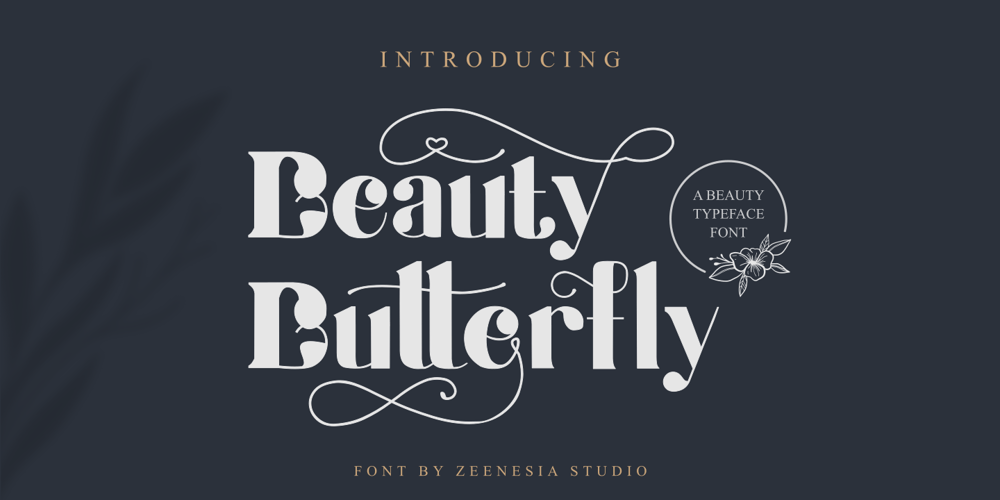
Beauty Butterfly
Beauty Butterfly font
Beauty Butterfly Font Family was designed by Zeenesia Studio and published by Zeenesia Studio. Beauty Butterfly contains 1 styles and family package options. Beauty Butterfly – A Beauty TypefaceBeauty Butterfly is a beauty typeface that’s perfect for creating gorgeous headlines and designs with personality. Beauty Butterfly makes an excellent typeface for vintage graphics, and the clean lines, elegant look to logos, wedding invitations, editorials, and more. Create gorgeous headlines with an all caps design, or try the lowercase for a delicate look that’s simply beautiful.Download Beauty Butterfly for your next project today.